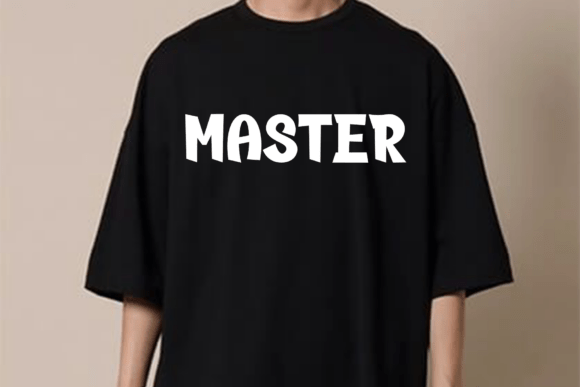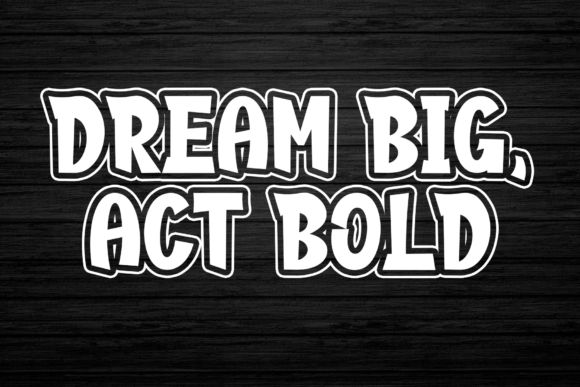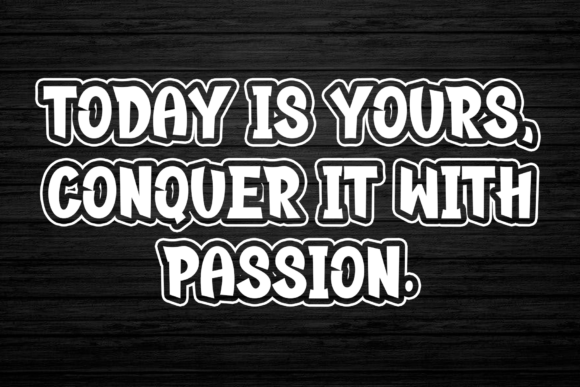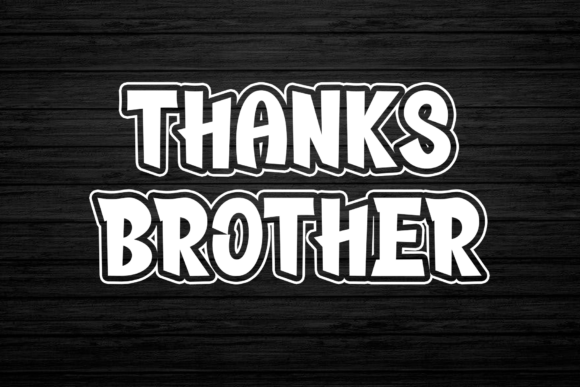
Drift Wood Font: Unleash Your Creativity with this Bold and Playful Graffiti-Style Font
Are you looking for a font that can add a punch of creative flair and attitude to your designs? Look no further than Drift Wood, a bold and playful graffiti-style font that’s packed with personality. In this article, we’ll explore the unique features of Drift Wood and how it can elevate your designs to the next level.
What is Drift Wood Font?
Drift Wood is a comic graffiti font that’s designed to bring your designs to life. Its chunky, hand-drawn forms and comic-inspired energy make every word pop with style, humor, and street-smart confidence. This font blends the charm of comic lettering with the edgy vibe of graffiti, making it perfect for designers who want to create eye-catching designs that stand out effortlessly.
The Unique Features of Drift Wood Font
So, what makes Drift Wood font so special? Here are some of its unique features:
- Chunky and Hand-Drawn Forms: Drift Wood’s chunky and hand-drawn forms give it a distinctive look that’s both bold and playful.
- Comic-Inspired Energy: The font’s comic-inspired energy makes it perfect for designs that need a fun and lively touch.
- Graffiti-Style: Drift Wood’s graffiti-style gives it an edgy vibe that’s perfect for streetwear designs, posters, and other bold creations.
- Expressive Shapes: The font’s expressive shapes capture a sense of fun and rebellion, making it perfect for designs that need to stand out.
Perfect for Bold Creations
Drift Wood is the perfect font for designers who want to create bold and eye-catching designs. Here are some ideas for using Drift Wood:
- Logos: Use Drift Wood to create a bold and memorable logo for your brand.
- Streetwear Designs: Drift Wood is perfect for streetwear designs, such as t-shirts, hoodies, and hats.
- Posters: Create eye-catching posters with Drift Wood’s bold and playful style.
- Stickers: Use Drift Wood to create fun and colorful stickers that grab attention.
- Gaming Covers: Drift Wood is perfect for gaming covers, adding a bold and playful touch to your design.
- Children’s Book Titles: Use Drift Wood to create fun and engaging titles for children’s books.
- Social Media Graphics: Drift Wood is perfect for social media graphics, adding a bold and playful touch to your posts.
Energetic and Expressive
Each letter in Drift Wood is designed to feel hand-crafted and full of motion, giving your designs a comic-style edge with a graffiti twist. The font combines boldness and approachability, making it perfect for projects that need a touch of personality and attitude.
Why Choose Drift Wood Font?
So, why choose Drift Wood font for your designs? Here are some reasons:
- Unique and Playful Style: Drift Wood has a unique and playful style that’s perfect for designers who want to stand out.
- Versatile: Drift Wood is versatile and can be used for a wide range of designs, from logos to social media graphics.
- Easy to Read: Despite its bold and playful style, Drift Wood is easy to read, making it perfect for designs that need to communicate a message.
- High-Quality: Drift Wood is a high-quality font that’s designed to deliver exceptional results.
In conclusion, Drift Wood font is a bold and playful graffiti-style font that’s perfect for designers who want to add a punch of creative flair and attitude to their designs. Its unique features, versatility, and high-quality design make it a great choice for a wide range of projects. Whether you’re creating logos, streetwear designs, posters, or social media graphics, Drift Wood is the perfect font to bring your designs to life.